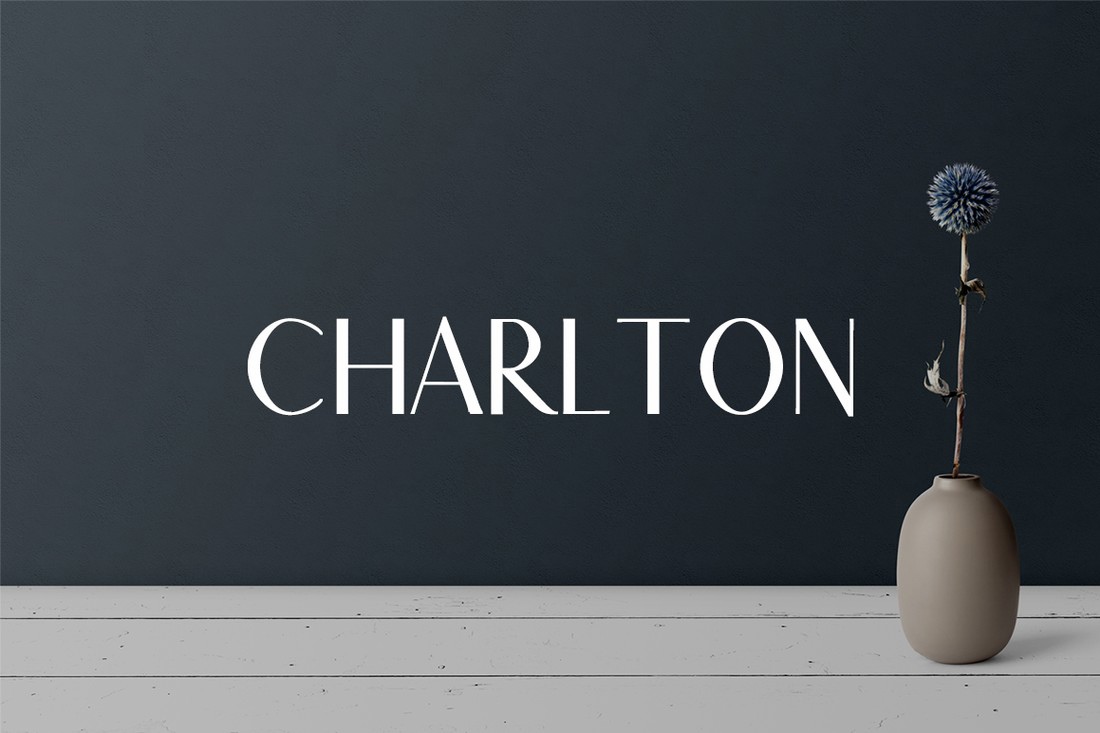
Charlton Font
This distinctive typeface is perfect for luxury fashion branding, elegant wedding invitations, high-end cosmetics packaging, boutique hotel signage, premium jewelry catalogs, sophisticated magazine headers, upscale restaurant menus, and exclusive event materials. Charlton Font delivers exceptional elegance in applications where refined sophistication and timeless appeal are essential.
What makes Charlton Font so exciting is its masterful blend of classical refinement and contemporary versatility. The font features gracefully proportioned letterforms with subtle design nuances that create an air of exclusivity and premium quality. Each character has been thoughtfully crafted to ensure perfect balance between elegance and legibility, making it equally effective in large display sizes and smaller text applications. The typeface's sophisticated personality elevates any design project, transforming ordinary content into extraordinary visual experiences that resonate with discerning audiences.
The Charlton Font includes multiple style variations: Regular, Italic, Bold, and Bold Italic versions. This curated collection provides designers with essential typographic tools to create sophisticated hierarchies and maintain visual consistency across diverse design elements. Each style preserves the font's inherent elegance while offering distinct characteristics for different design applications and emphasis levels.
Whether you're crafting premium brand identities, developing luxury marketing materials, or designing exclusive editorial content, Charlton Font Free Download provides the sophisticated aesthetic that premium brands demand. Its refined character makes it particularly suitable for fashion houses, luxury hotels, fine jewelry brands, and upscale service providers. The font's exceptional versatility ensures stunning results across both print and digital media, while its timeless design philosophy creates lasting visual impact that transcends seasonal trends.
This elegant typeface continues to be the preferred choice for designers who understand the power of sophisticated typography in premium brand communication.